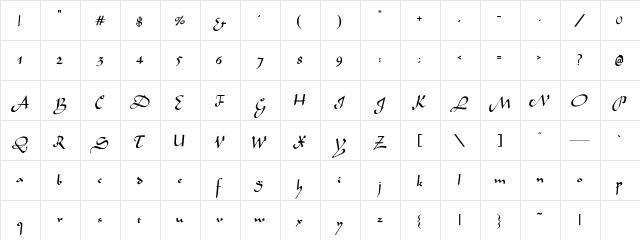
Bogart-Normal Regular
Design Context for Bogart-Normal Typeface
Bogart-Normal takes a measured approach to typography — its balanced proportions and neutral character make it a reliable workhorse for both digital and print work.